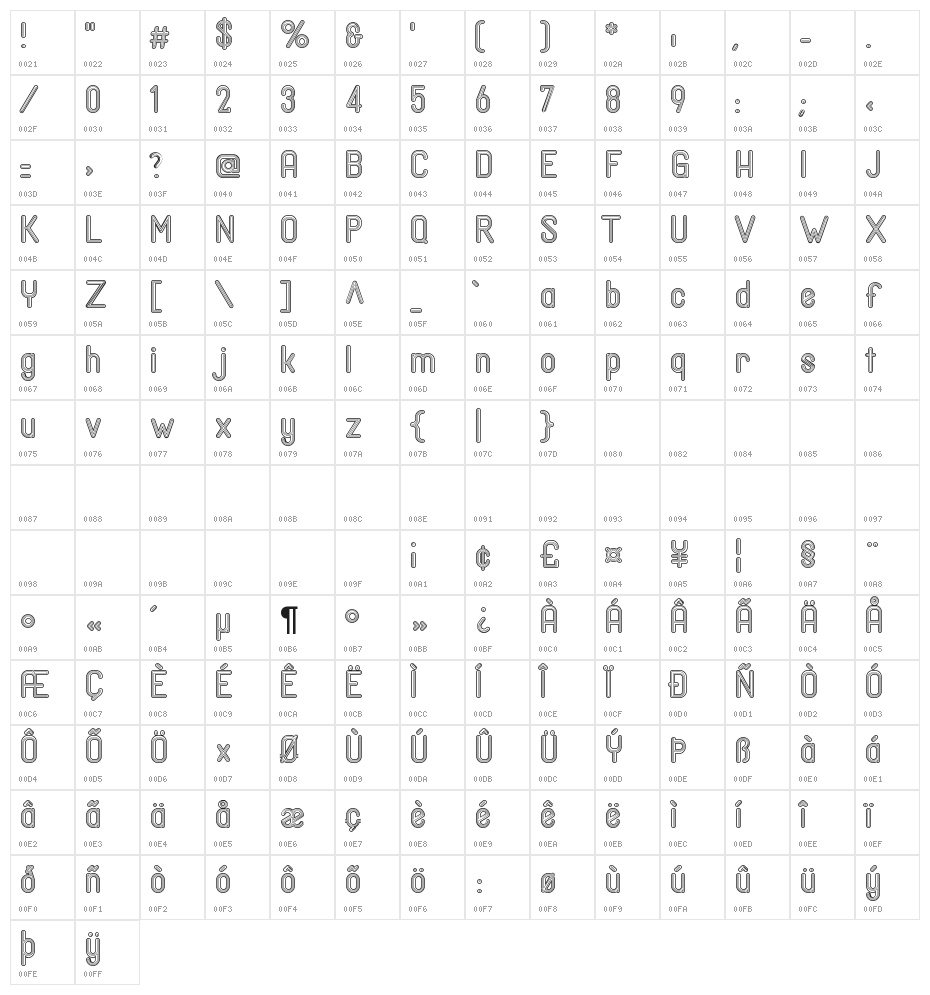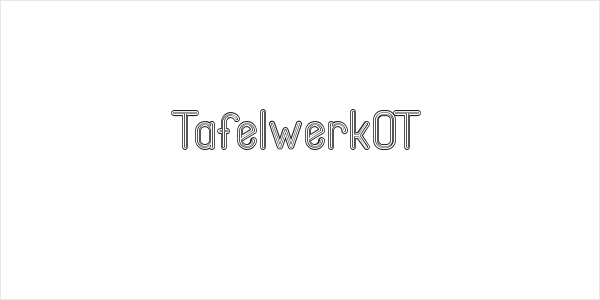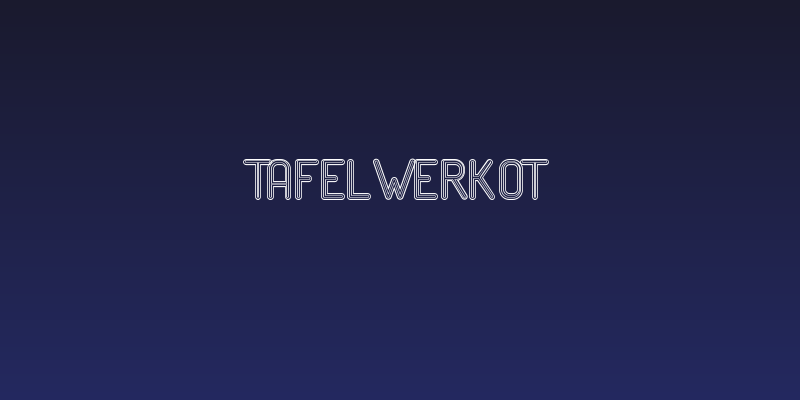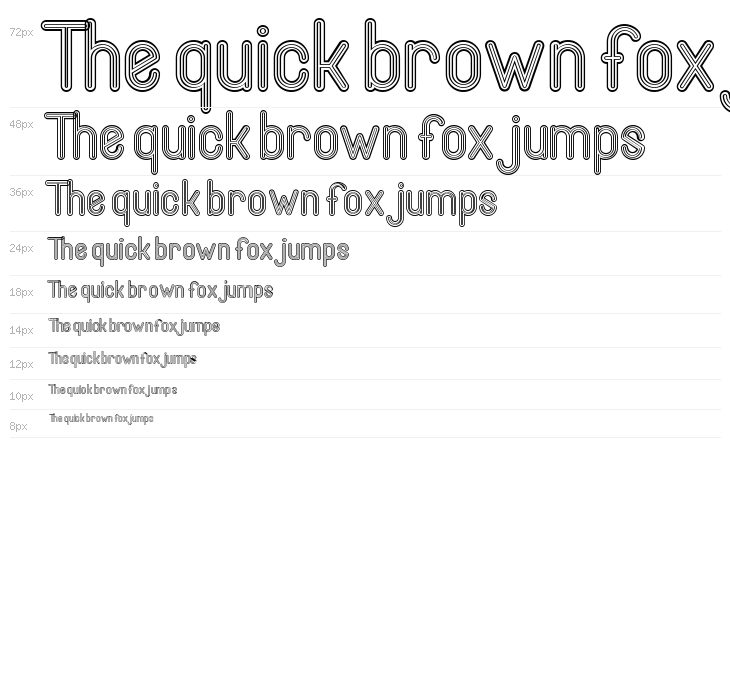
TafelwerkOT Font
TafelwerkOT Description
This font features a unique, outlined design with a modern and geometric aesthetic. Each character is composed of multiple parallel lines, creating a three-dimensional effect. The uppercase and lowercase letters maintain a consistent style, with rounded edges and uniform line thickness. The numerals and special characters follow the same design principles, ensuring a cohesive look across all glyphs. This font's distinct appearance makes it ideal for creative and eye-catching designs.
| Proposed Projects | Ideal for posters, logos, branding, and any project requiring a bold and modern statement. |